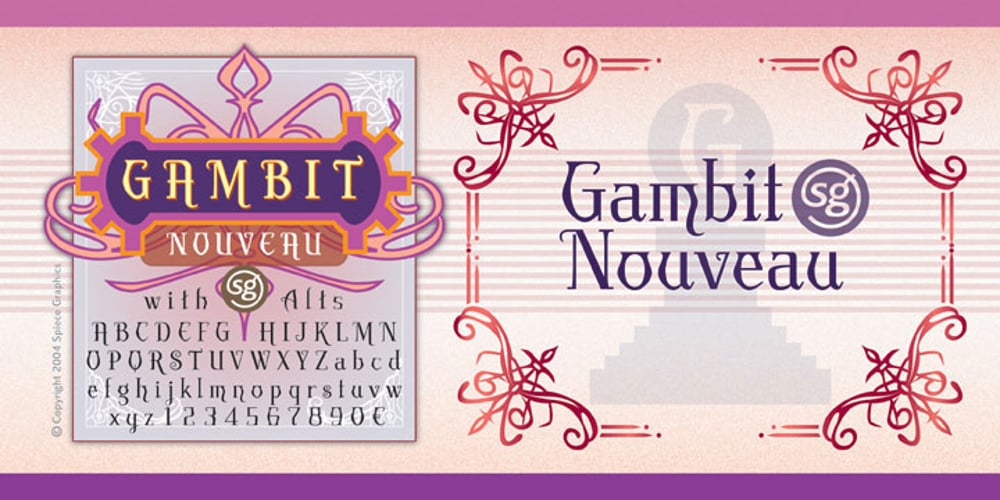
Gambit Nouveau SG Font Family was designed by Jim Spiece and published by Spiece Graphics. Gambit Nouveau SG contains 1 styles and family package options. Sinuous but sturdy; ornate but legible – Gambit Nouveau is modern-day design created in the spirit of Art Nouveau. This delicate and natural typeface features tapered spurs, compact swashes, and spiral curling. You will find it ideally suited for announcements and invitations as well as decorative headlines. And for your convenience, Gambit Nouveau comes equipped with corner and free-standing ornaments plus a wide range of alternate characters. Gambit Nouveau is also available in the OpenType Std format. Some new features including initial forms and old style figures have been added to this OpenType version. Advanced features currently work in Adobe Creative Suite InDesign, Creative Suite Illustrator, and Quark XPress 7. Check for OpenType advanced feature support in other applications as it gradually becomes available with upgrades.